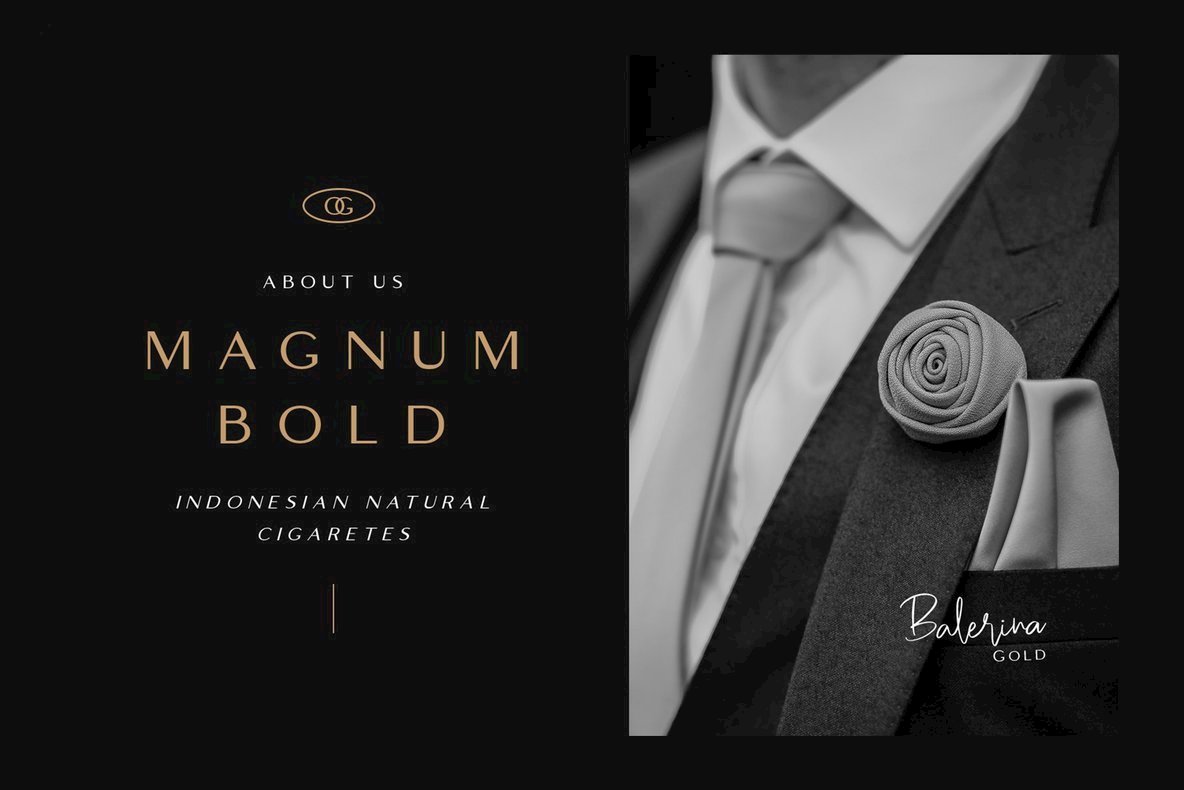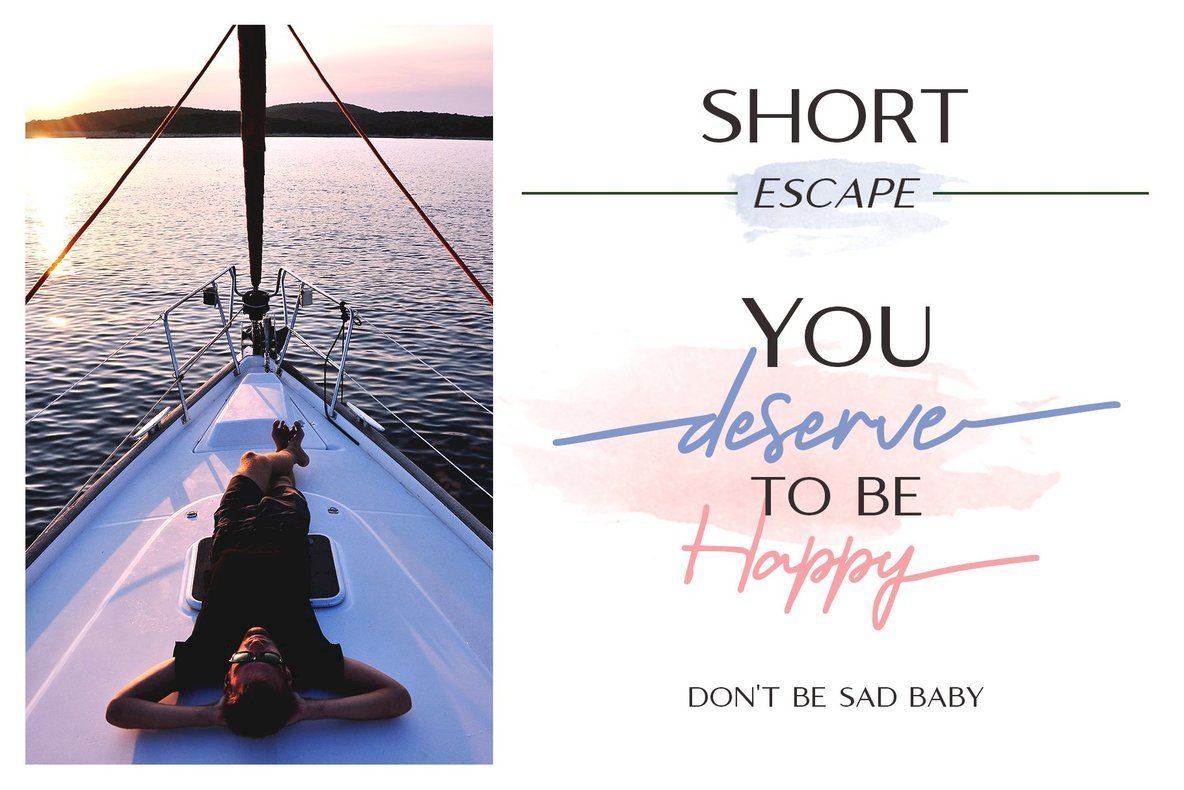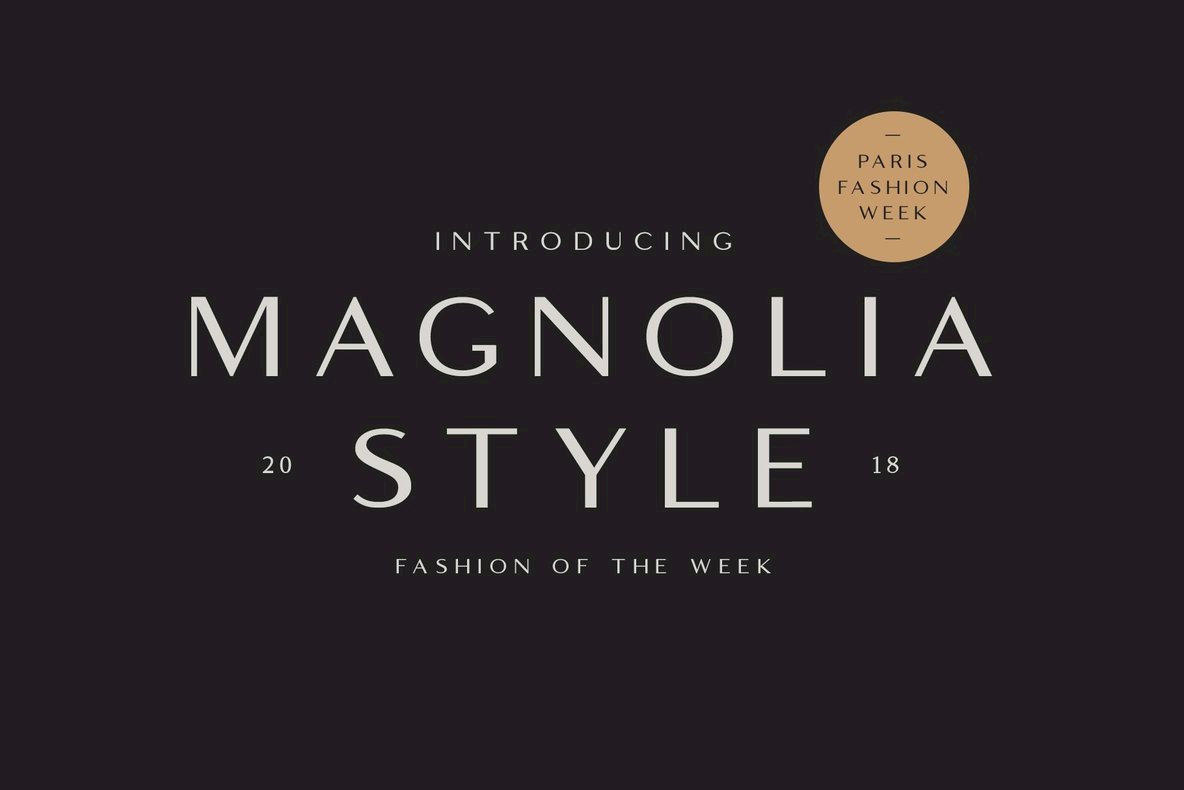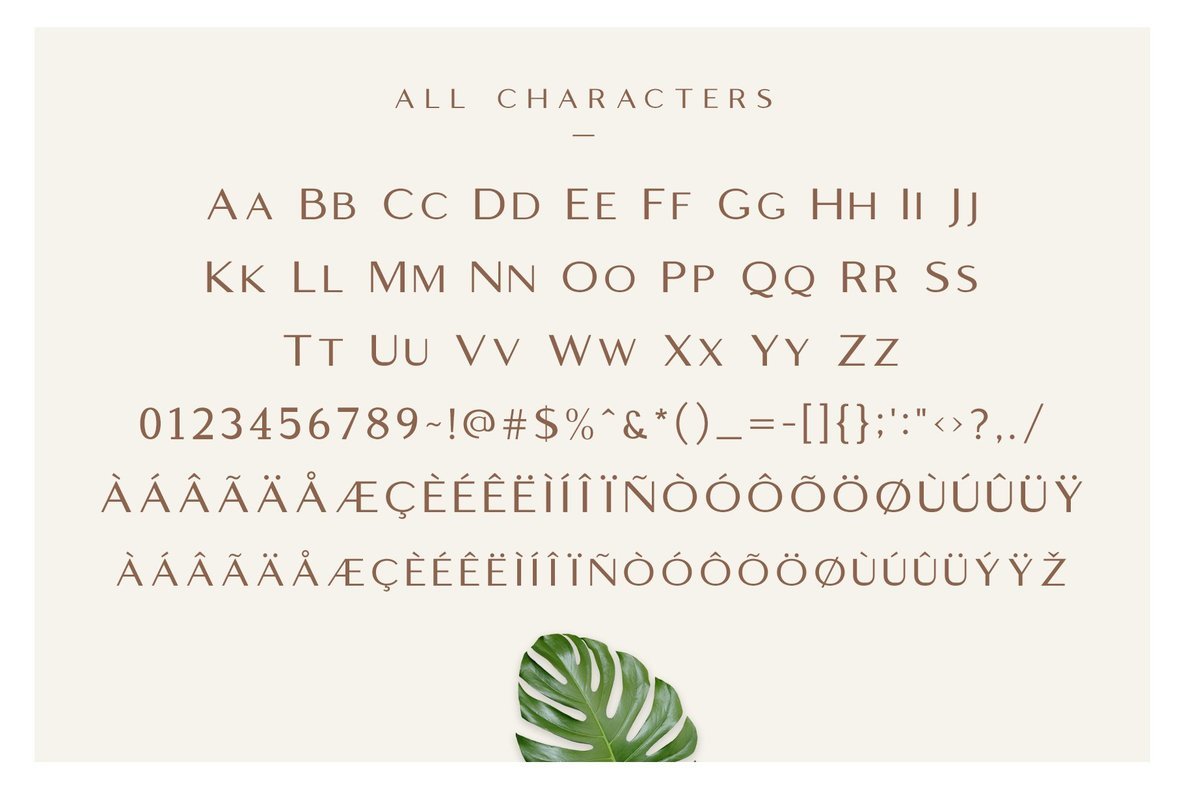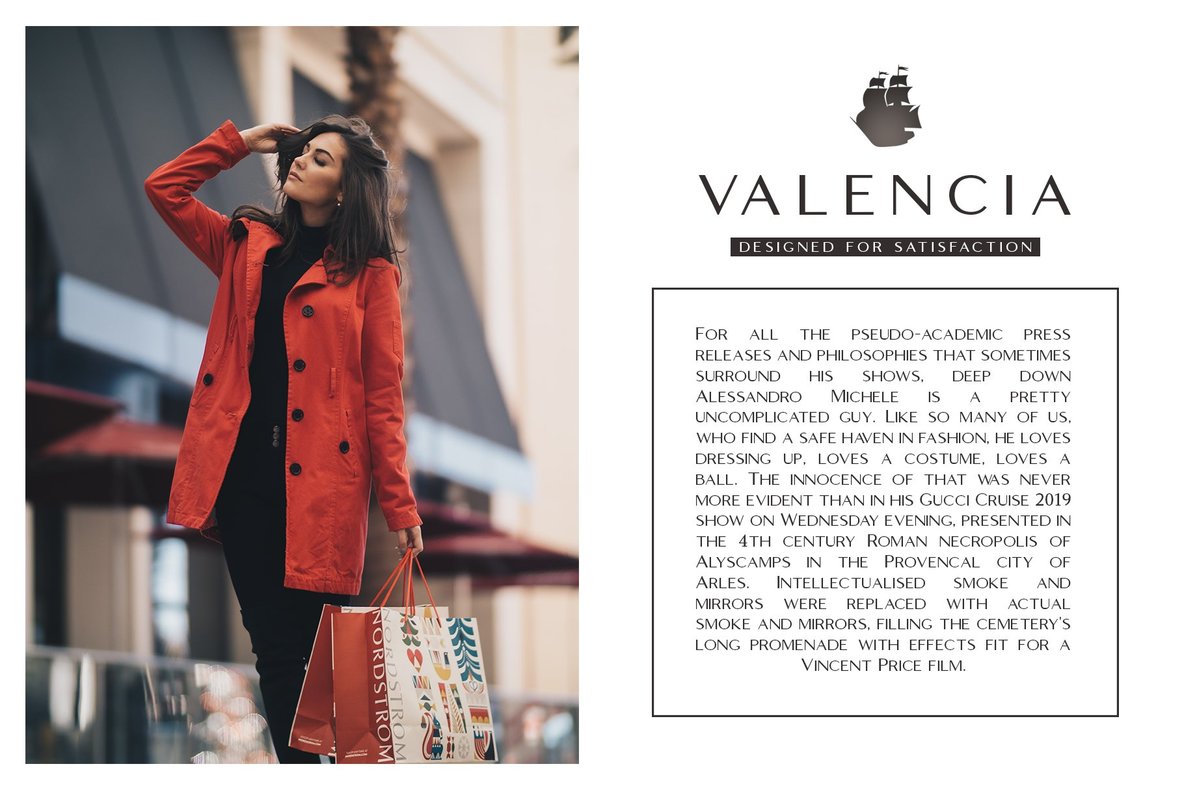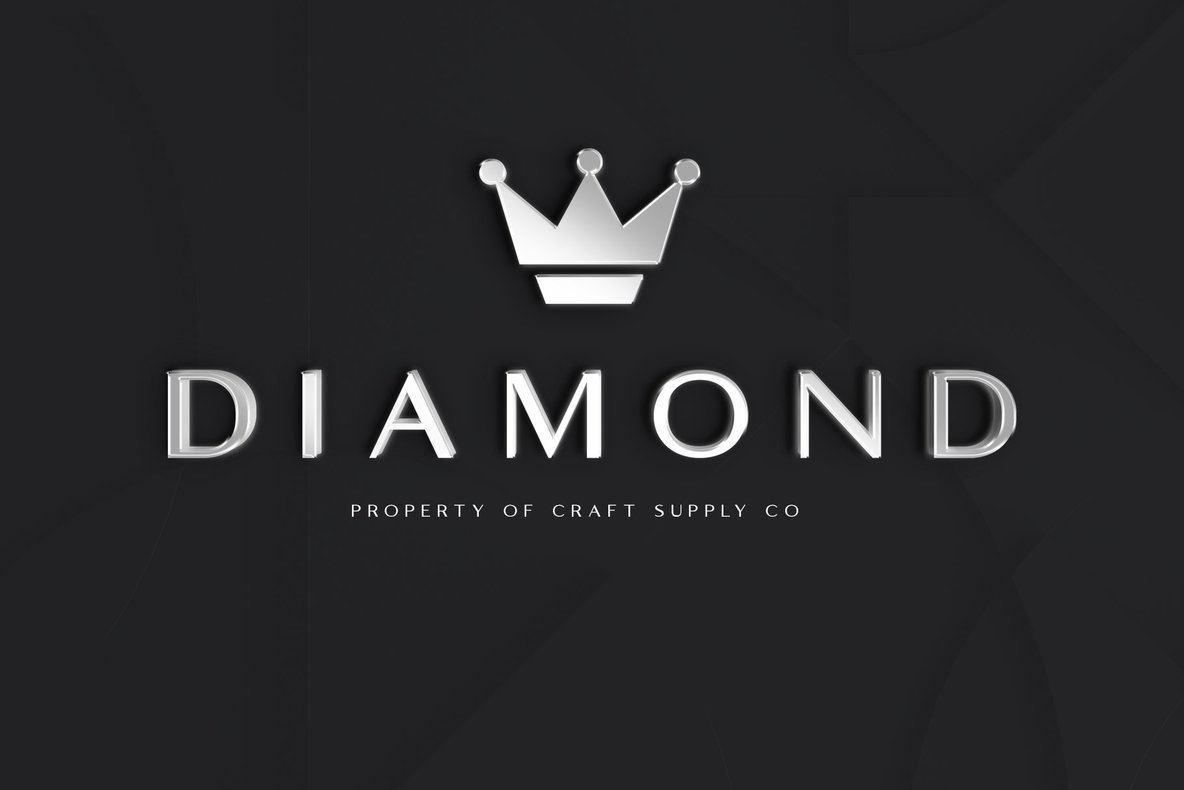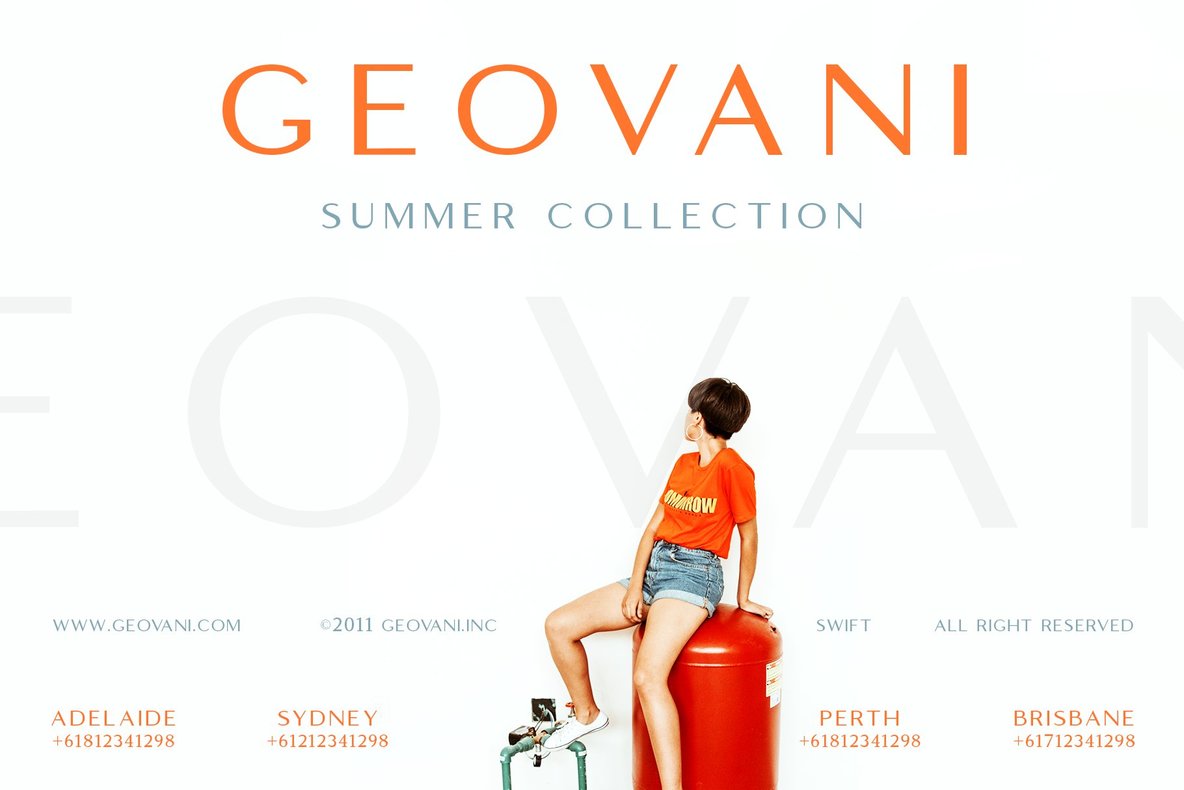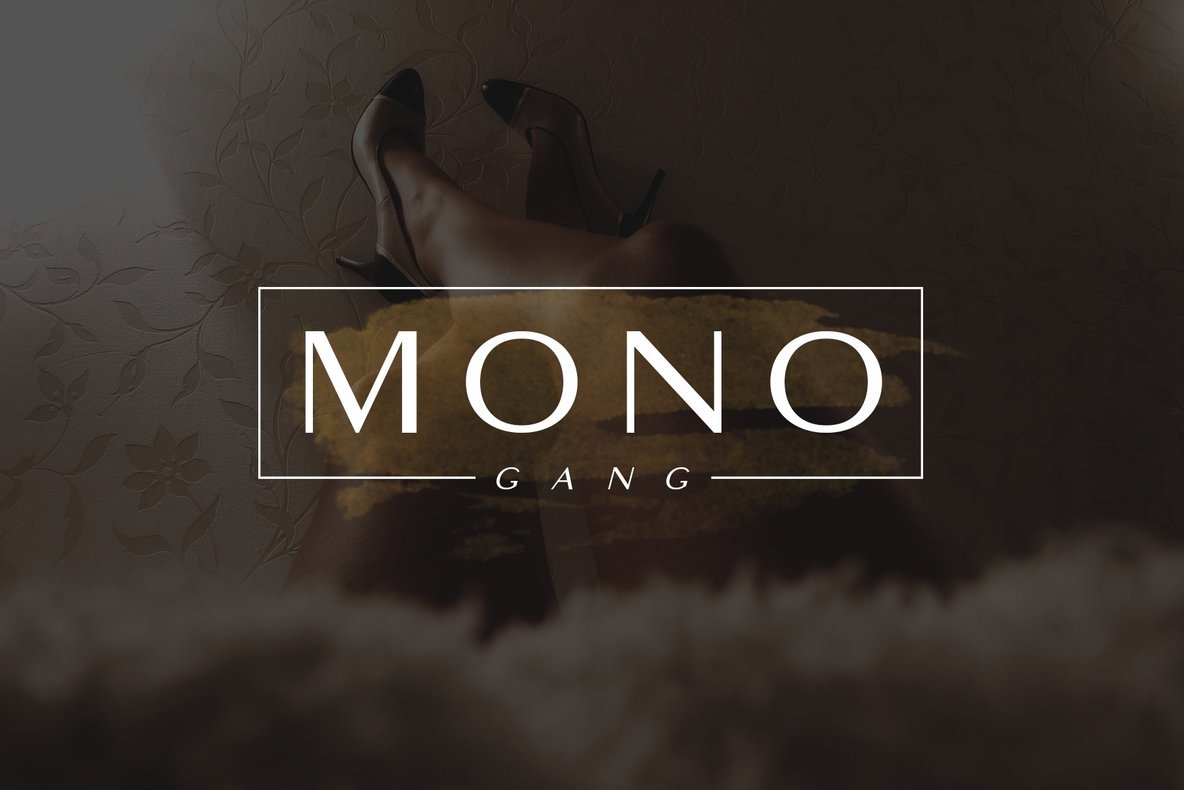
Logam Font
Introducing New Font : Logam - Luxury Sans Serif Font Family
Logam - Luxury Sans Serif is a modern sans serif font family whose design refers us to the style of modern sans serif. The distinctive features of Logam - Luxury Sans Serif are the relatively low contrast of strokes, the slightly squarish shapes of round characters and the emphasized business like simplicity.
Logam - Luxury Sans Serif features an original stylistic set which, when turned on, adds features of typical pointed-pen sans serif to some of the lowercase characters. In addition, Logam - Luxury Sans Serif has small capitals for Latin and as well as several interesting ligatures.
Logam - Luxury Sans Serif has been crafted from scratch with a structural logic of its own: a fusion of pure geometry and optical balance. By combining a variety of styles Logam - Luxury Sans Serif is suitable for Logo, greeting cards, quotes, posters, branding, name card, stationary, design title, blog header, art quote, typography
Logam - Luxury Sans Serif also suitable for art, modern envelope lettering or book design, happening style like handdrawn design or watercolor design theme, craft design, any DIY project, book title, wedding font, pop vintage design, or any purpose to make our art/design project look pretty and trendy.
Features :
All Caps Characters
Standard Ligatures
Numerals & Punctuations (OpenType Standard)
Accents (Multilingual characters)